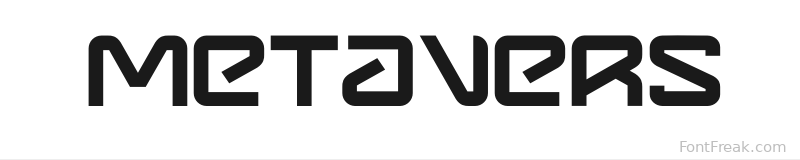
Metavers
Metavers, crafted by MaknaStudio in 2022, is a striking display typeface that combines modern aesthetics with timeless appeal. As a freeware font, it offers an excellent option for designers looking to elevate their projects without financial constraints. The Metavers font features bold, geometric letterforms with a semi-condensed structure, making it perfect for capturing attention in various contexts. The stroke weight is uniform, providing a clean and polished look, while the minimal contrast adds to its modern vibe. Its thoughtful spacing ensures readability, making it a versatile choice for both print and digital designs.
This font excels in a variety of use cases, making it a valuable addition to any designer's toolkit. It is particularly well-suited for eye-catching movie posters, where its boldness can draw viewers in. Metavers also shines in branding projects, such as logos for tech startups, where a contemporary feel is essential. Additionally, it can be effectively used on restaurant menus, giving a modern twist to the dining experience. For content creators, the font is ideal for promotional graphics and social media posts, helping to convey a stylish and professional image.
Targeting graphic designers, small business owners, and content creators, Metavers offers a fresh approach to typography. Its versatility allows users to adapt it to various design needs, ensuring a cohesive visual identity across different platforms.
What sets the Metavers font apart is its unique blend of geometric simplicity and bold presence, making it a standout choice for any project. With the Metavers font free download, designers can easily incorporate this exceptional typeface into their work, enhancing their creative endeavors with a modern touch.